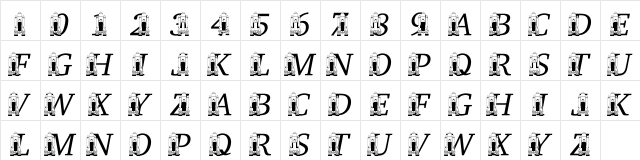
Complete LMS Remembering SS Challenger Regular glyph index. Displaying only characters natively supported by LMS Remembering SS Challenger Regular font.
LMS Remembering SS Challenger is a composed and adaptable typeface that performs quietly and consistently across a wide range of design contexts.